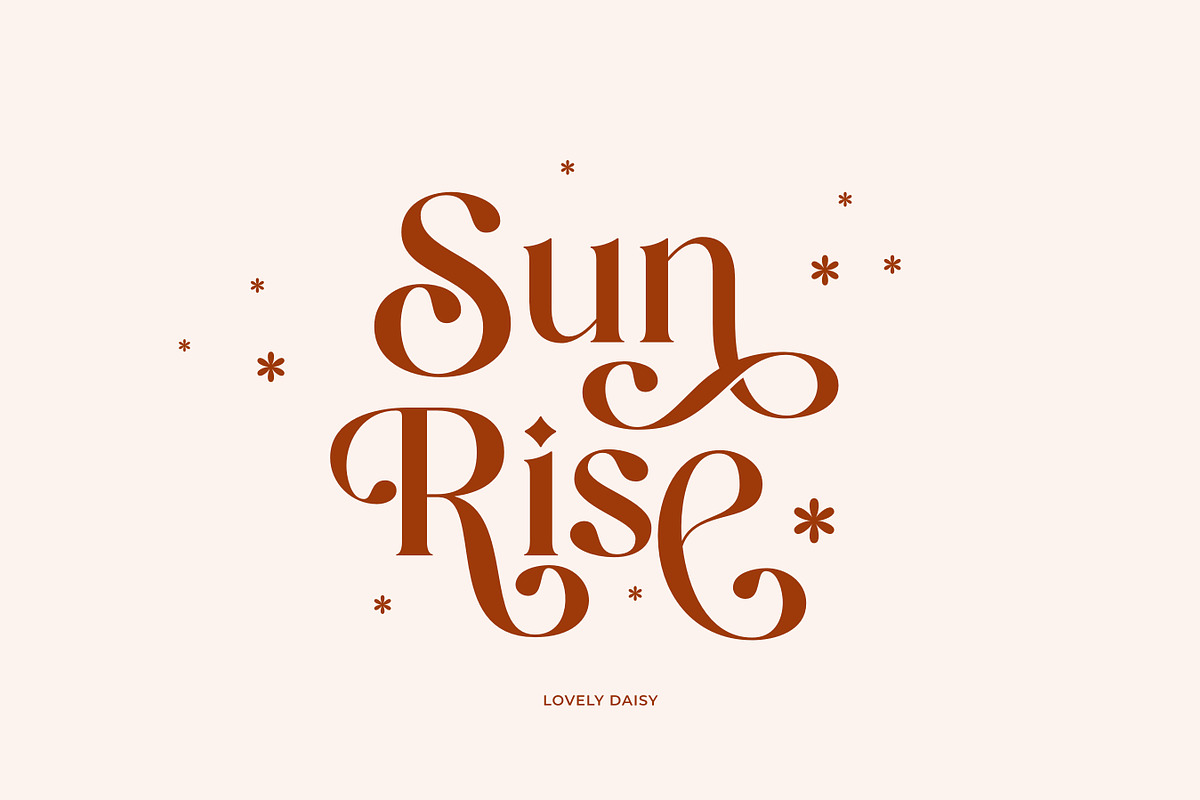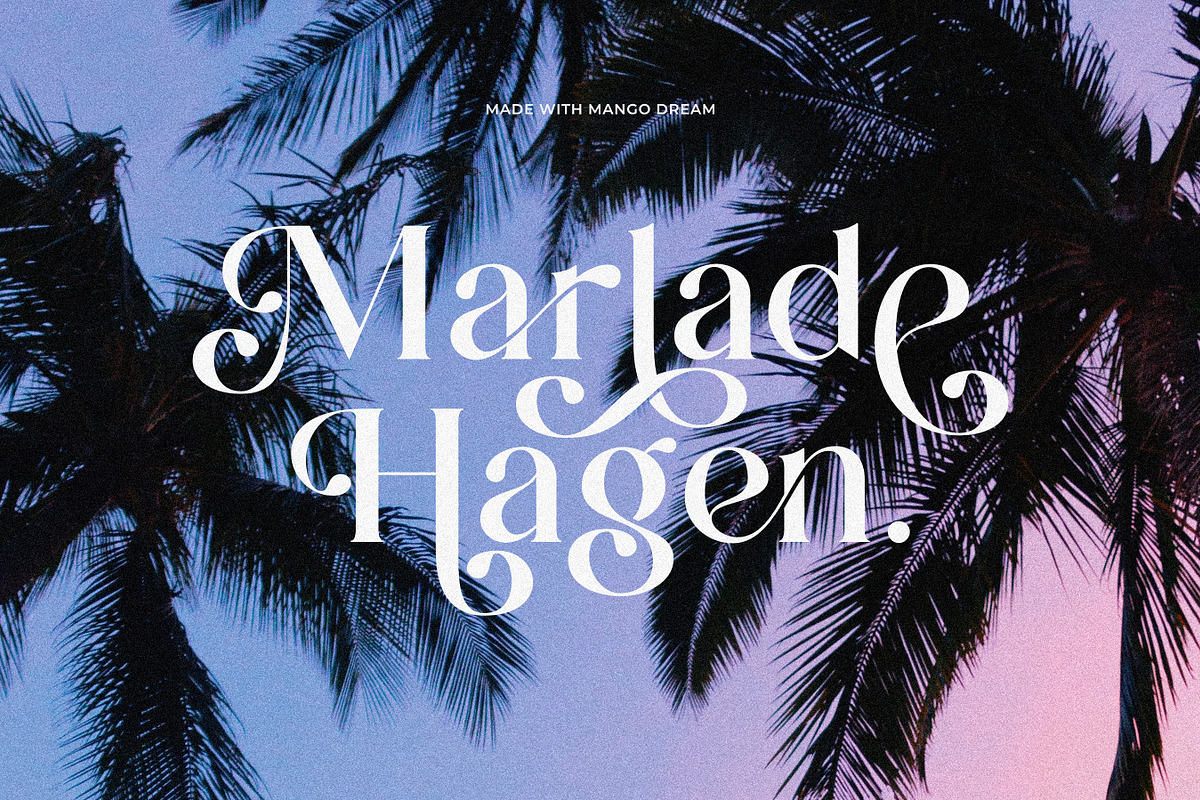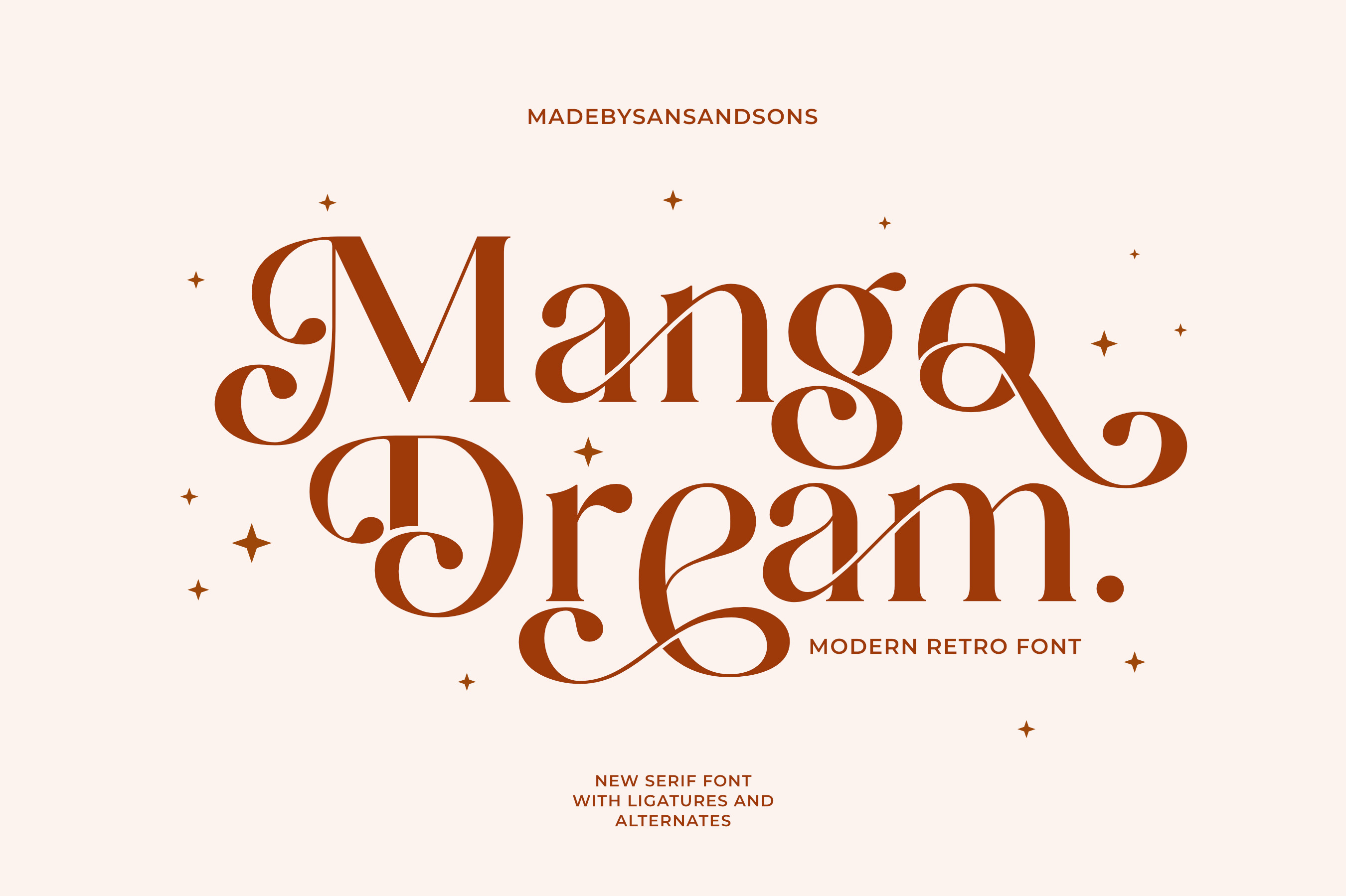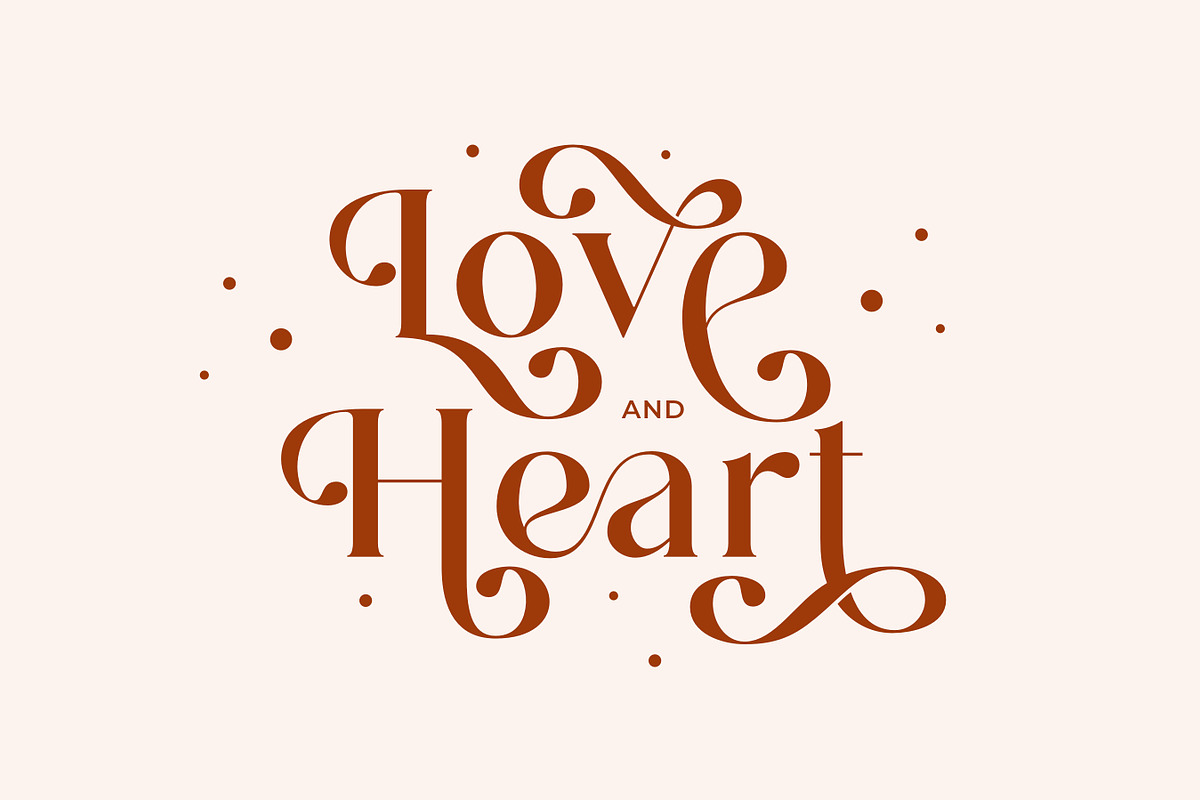
Mango Dream - Modern Retro Font
Mango Dream - Modern Retro Ligature Font by Sans and Sons
introducing our new "Mango Dream" Modern Retro Ligature with Elegant Style this is perfect for branding, logos, invitation, masterheads and more.
Mango Dream Features :
- Multilanguange